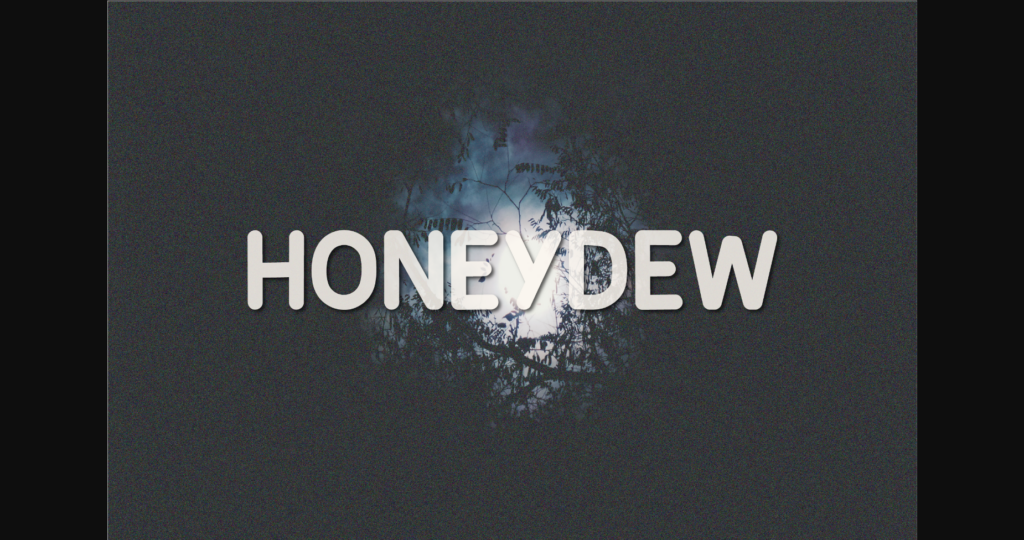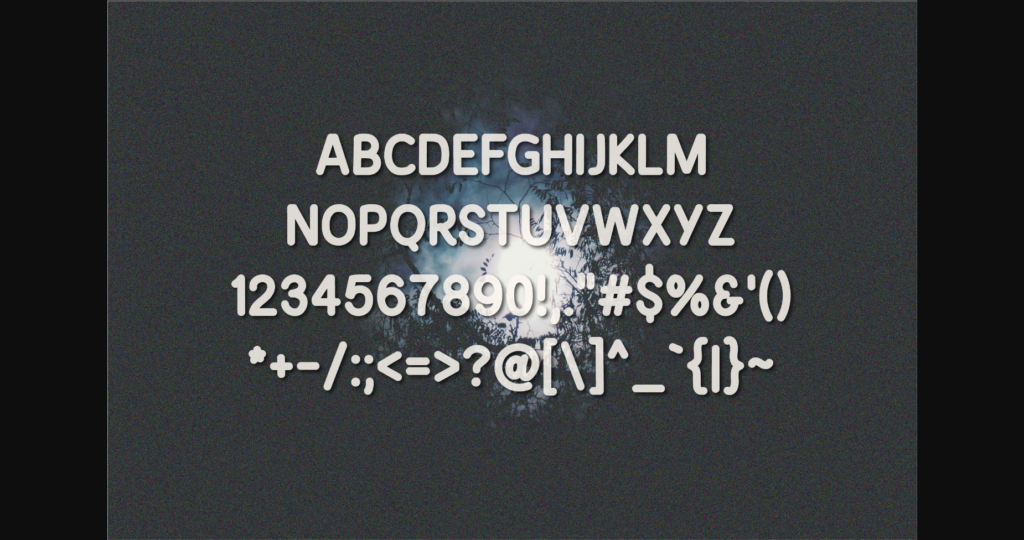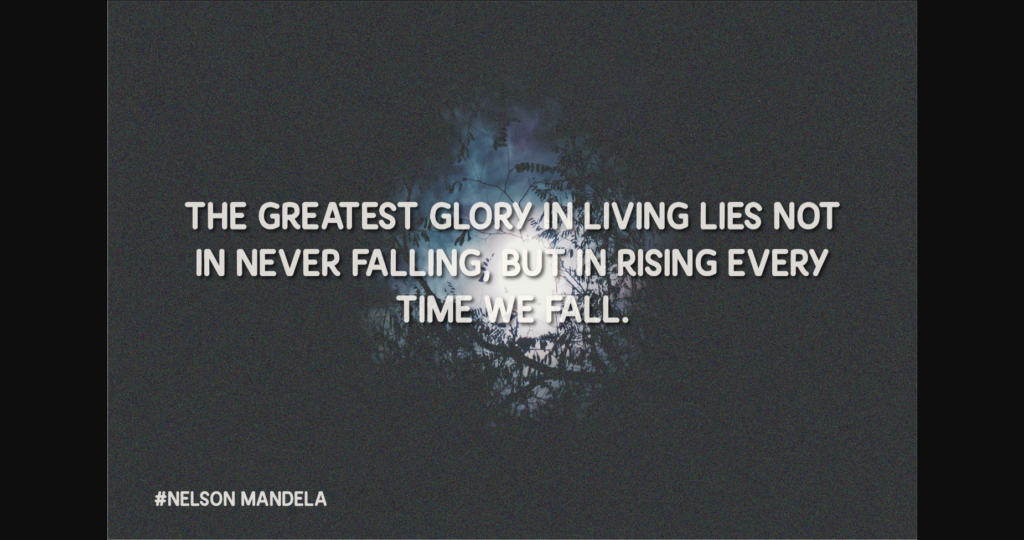
HomeSans Serif FontsHoneydew Font Sans Serif Fonts Honeydew Font FacebookXPinterestWhatsApp 1 of 7 ... Honeydew Font Poster 2... Honeydew Font Poster 3... Honeydew Font Poster 4... Honeydew Font Poster 5... Honeydew Font Poster 6... Honeydew Font Poster 7... About Honeydew Font Honeydew is a quirky all-caps font made up of capital letters. This font is perfect for social media or crafty projects. Simple and smooth perfect for crafting, t-shirts, decals, cards, invitations and so much more. DOWNLOAD NOW People also explored Hardball Font Wolvirun Font Roseville Font Ramoon Font Cheesecakes Font Sticks and Stones Duo Font Good Xmas Font Birds and Butterflies Font Bellabio 358 0 TagsHoneydew Font Previous articleBruschetta FontNext articleHomemade Font LEAVE A REPLY Cancel reply Comment: Please enter your comment! Name:* Please enter your name here Email:* You have entered an incorrect email address! Please enter your email address here Website: Save my name, email, and website in this browser for the next time I comment. Personal Use Free Klotee Personal Use Free Read more about this font Kellana Personal Use Free Read more about this font Aldenburg Personal Use Free Read more about this font Entin Personal Use Free Read more about this font BLOG How to Install and Use Fonts on Windows, macOS, and Web Projects How to Install and Use Fonts on Windows, macOS, and Web Projects Fonts are a crucial part of design and branding. Whether you’re designing a... The 10 Best Handwriting Fonts to Add Personality to Your Designs How to Cut Any Font on Cricut: Convert a Font to SVG (Free) Fonts That Capture the Spirit of New York City